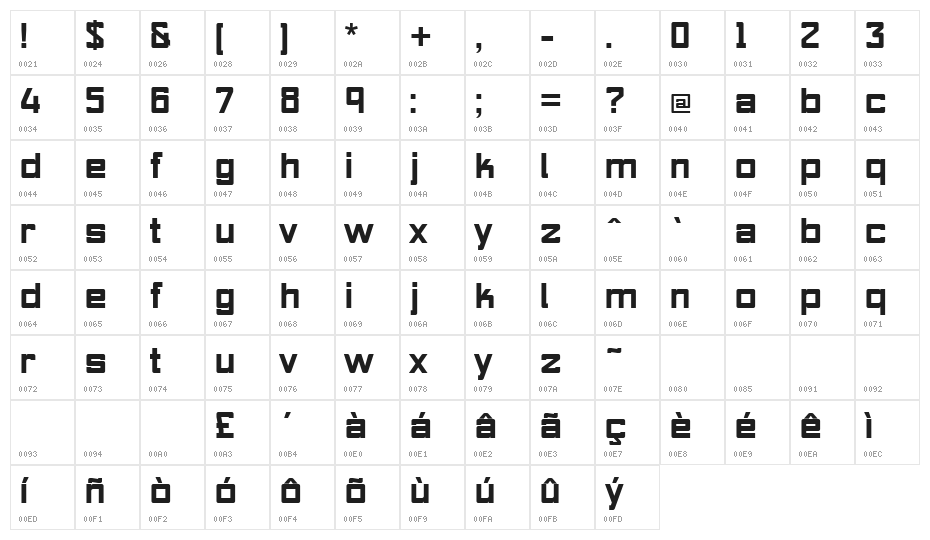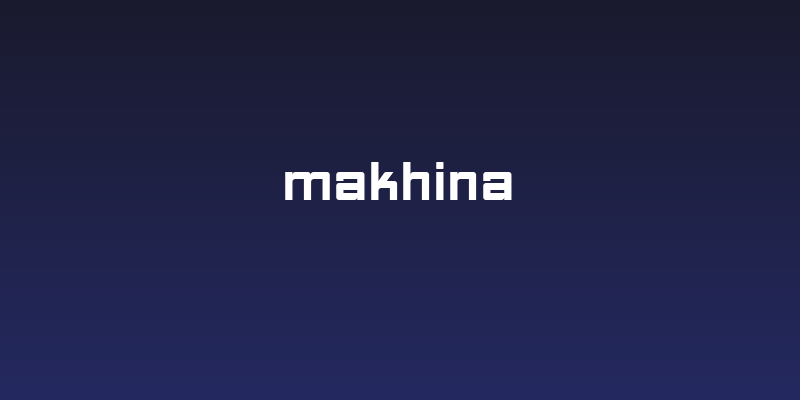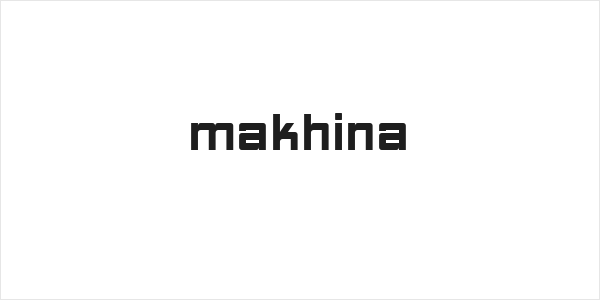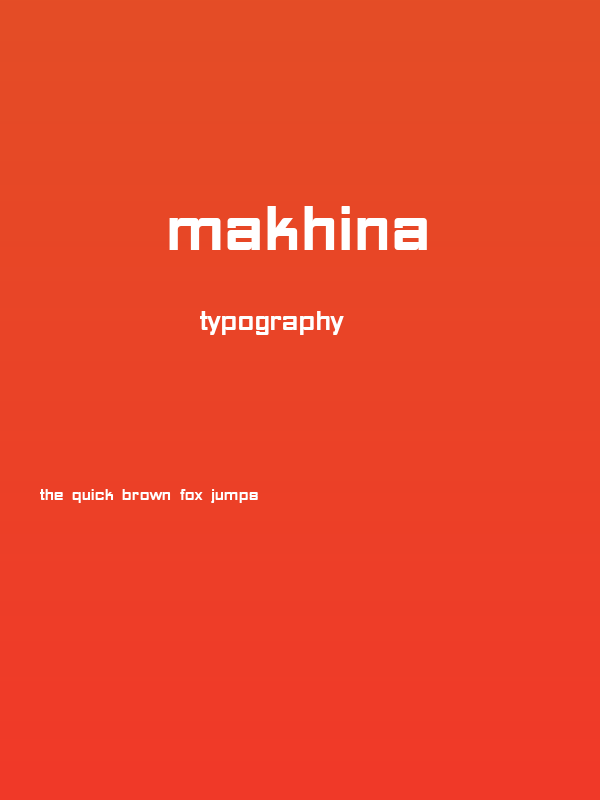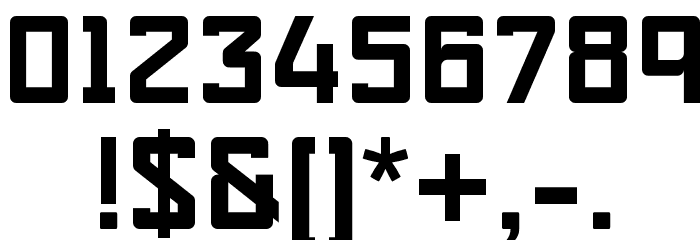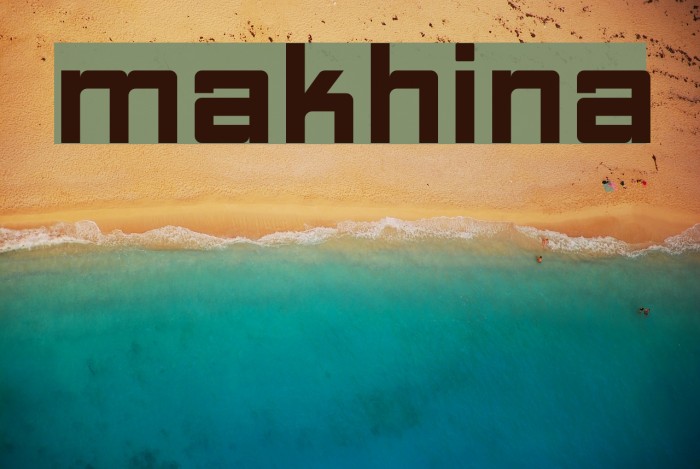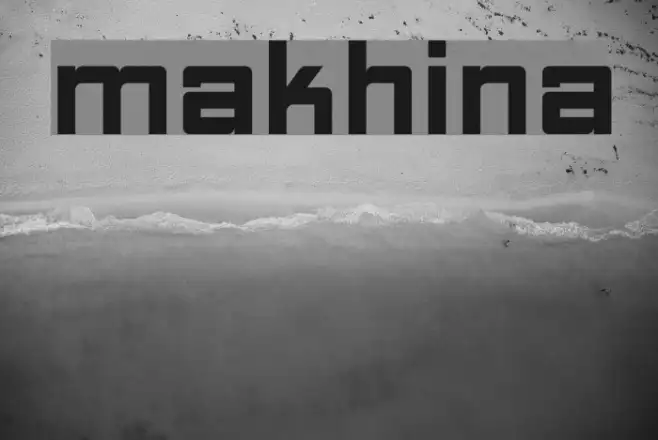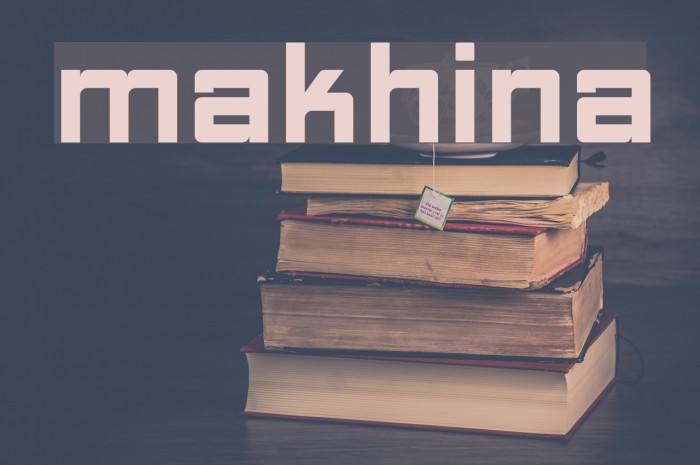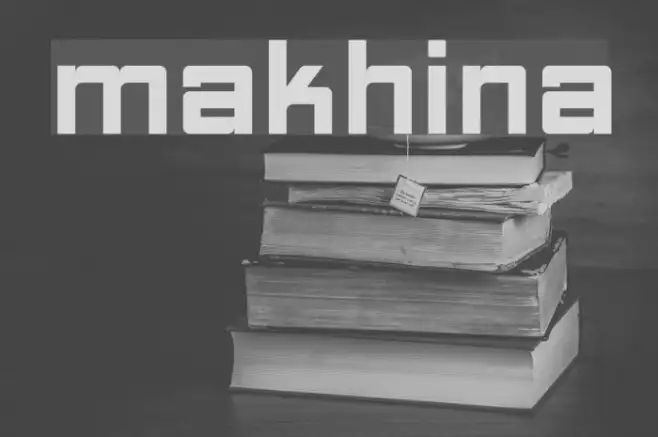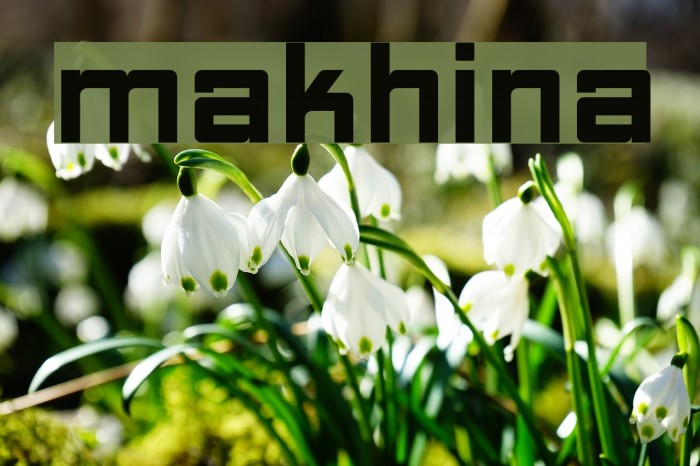
Makhina Font
Makhina Description
This font features a bold and geometric design, characterized by its blocky and angular letterforms. The uppercase and lowercase letters maintain a consistent height, creating a uniform appearance. The numerals are equally bold, with a strong presence that matches the letters. Special characters are designed with the same geometric precision, ensuring a cohesive look across all glyphs. The font's style is modern and industrial, making it suitable for projects that require a strong and impactful visual statement. Its bold weight and condensed width contribute to its striking appearance, while the tight character spacing enhances its compact and efficient design.